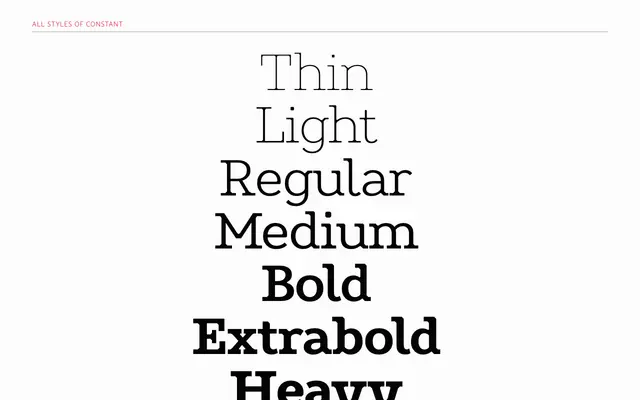
A seven-weight grotesque sans with variable font support and extensive multilingual coverage across hundreds of Latin-script languages.
Spanning Thin to Heavy with a variable font option, Constant offers a straightforward grotesque structure suited to branding, packaging and editorial work. Opentype features include standard and discretionary ligatures, fractions, stylistic alternates for J and R, and a full suite of numeral styles. Language support is unusually broad, covering Vietnamese diacritics and a large catalogue of Latin-script languages from Batak to Welsh.
Constant is a sans-serif with grotesque characteristics, featuring a wide weight range from Thin to Heavy and a straightforward upright structure suited to display and text settings.